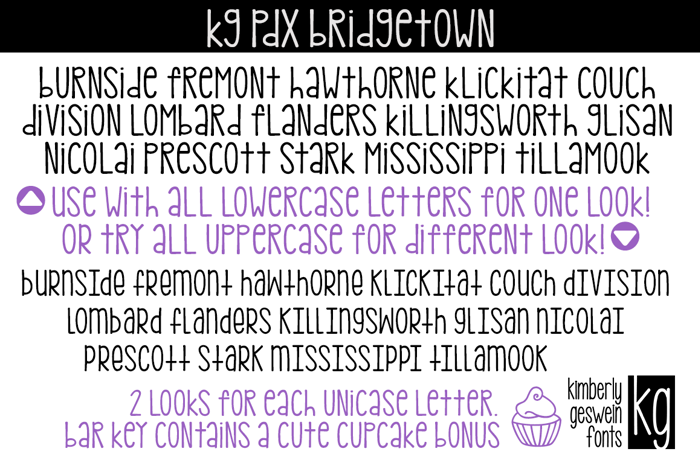
kg pdx bridgetown Font
kg pdx bridgetown Font is a Skinny font and was created on . Since then, it has been downloaded 7,678 times and added to 189 collections. 7 people have liked kg pdx bridgetown Font and given it a thumbs up.
This font is intended to be used with all of the lowercase letters. Alternate glyphs for each letter are contained in the capital letters.